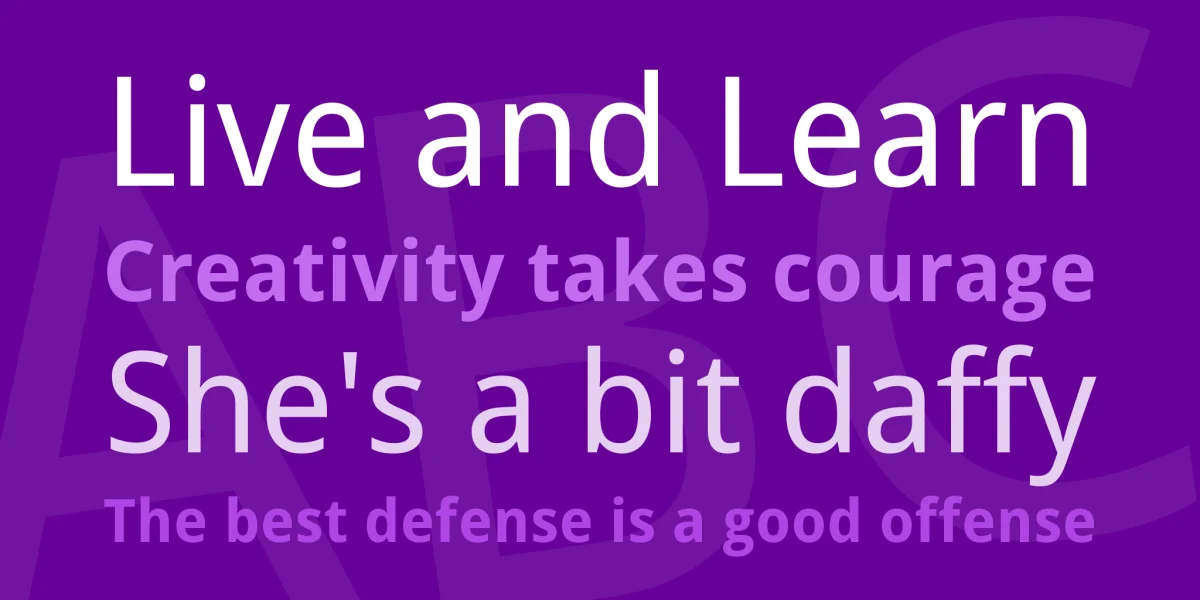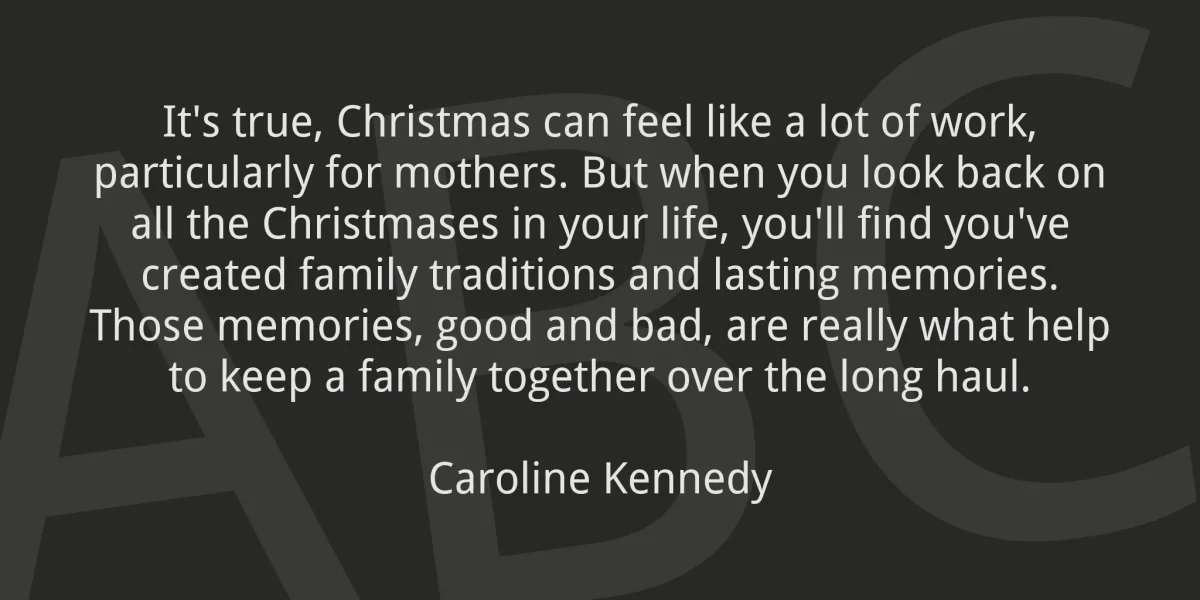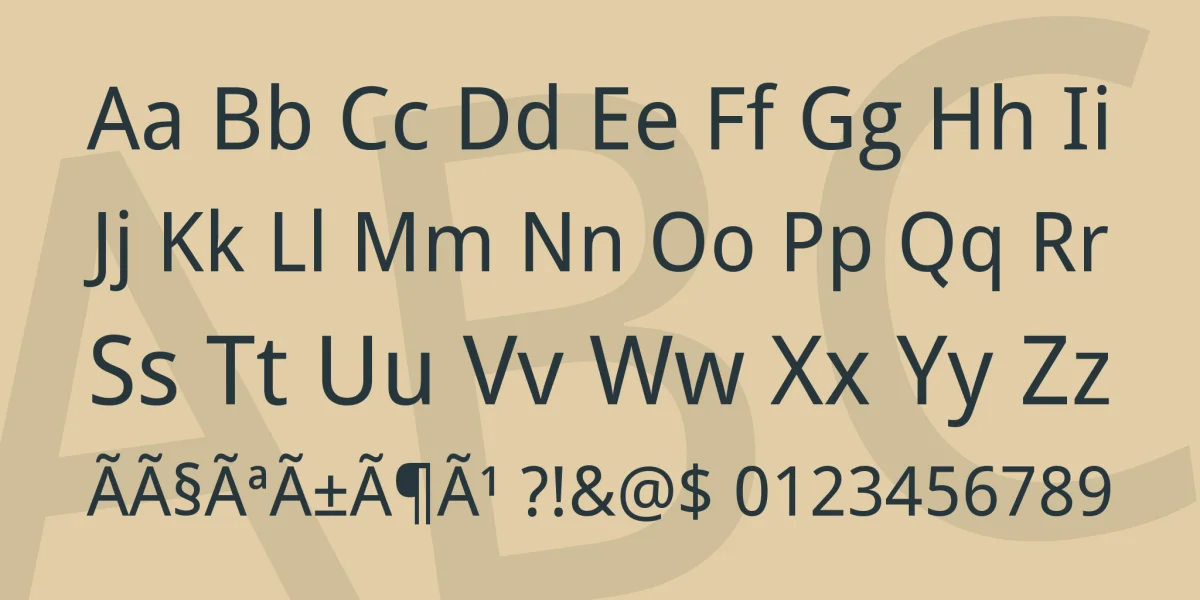
Droid Sans is a humanist sans serif typeface designed by Steve Matteson, Type Director of Ascender Corp. Droid Sans was designed with an upright stress, open forms and a neutral, yet friendly appearance. Droid Sans was optimized for user interfaces and to be comfortable for reading on a mobile handset in menus, web browser and other screen text.